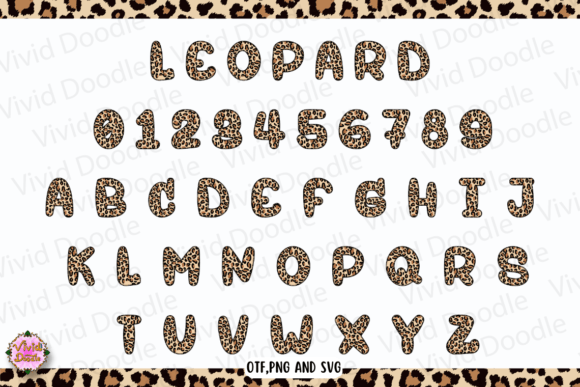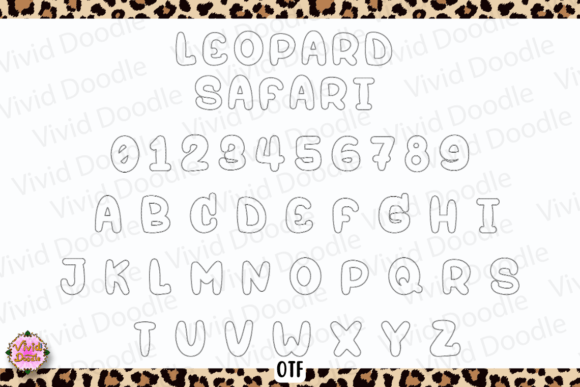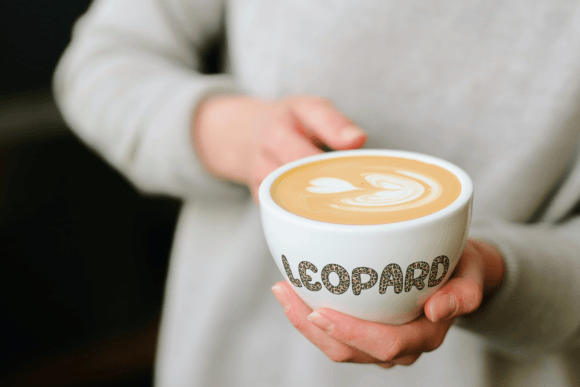
Introduction to Leopard Safari Font
Have you ever found yourself staring at a blank canvas, yearning for the perfect font to bring your creative vision to life? For designers, the right typography can make all the difference in elevating a project from ordinary to extraordinary. That’s where the Leopard Safari Font comes in – a game-changing design resource that’s sure to spark your imagination and inspire your next creative project.
Imagine being able to transport your audience to the sun-drenched savannas and dense jungles of the animal kingdom with a single, striking font. The Leopard Safari Font is more than just a stylish typeface – it’s an immersive experience that combines the untamed allure of leopards with a high-quality design that’s perfect for posters, headlines, and any artistic venture.
Key Features of Leopard Safari Font
- Unique, hand-drawn design with a natural, organic feel, ideal for creative projects and design resources.
- Perfect for use in creative projects, such as logos, branding, and packaging design, where a unique and eye-catching font is required.
Honest Review: Leopard Safari Font
As a designer, I’m always on the lookout for high-quality design resources to elevate my creative projects. The Leopard Safari Font caught my attention, and I decided to give it a try. Here’s my honest review.
- Unique and playful design: The Leopard Safari Font has a distinctive look that’s perfect for projects that need a bit of whimsy.
- High-quality typography: The font is well-designed and easy to read, making it suitable for a wide range of applications.
Overall, I’m impressed with the Leopard Safari Font. While it has some limitations, its unique design and high-quality typography make it a valuable addition to any designer’s collection. If you’re looking for a fun and creative font for your next project, give it a try!
The Leopard Safari Font is commonly used in design projects that require a bold and adventurous look, such as travel brochures, outdoor advertisements, and wildlife conservation campaigns.